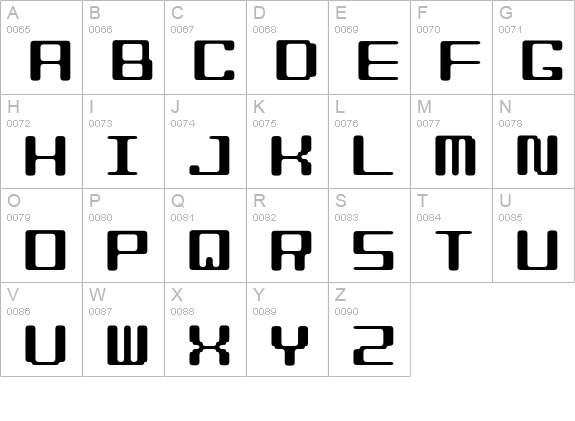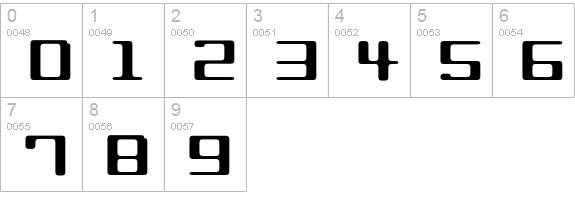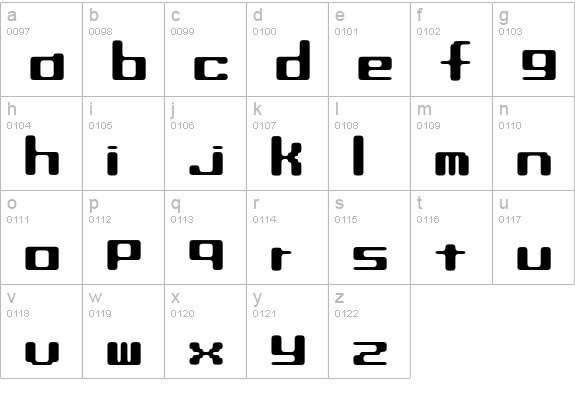
Biscuits (sRB) Font Details
Introducing the charming and versatile Biscuits (sRB) font, a delightful typeface that brings a touch of whimsy and elegance to any design project. With its playful curves and unique letterforms, Biscuits (sRB) is the perfect choice for adding a dash of personality to your creations. This font is not only visually appealing but also incredibly versatile, making it suitable for a wide range of applications, from branding and packaging to invitations and social media graphics. Whether you're looking to create a fun and lighthearted design or add a touch of sophistication to your project, Biscuits (sRB) has got you covered. Best of all, Biscuits (sRB) is available for free download at FontsMarket.com, making it easily accessible to all designers and creatives looking to elevate their work with this charming typeface. Don't miss out on the opportunity to add the unique flair of Biscuits (sRB) to your projects today!